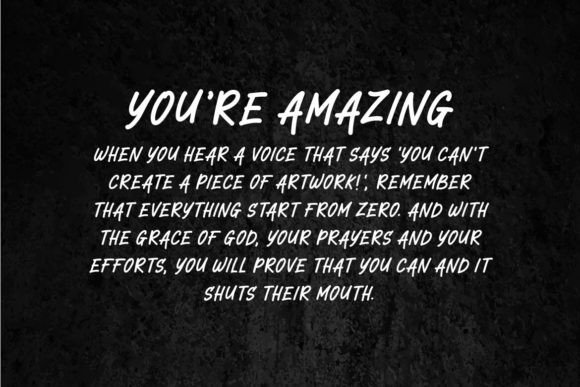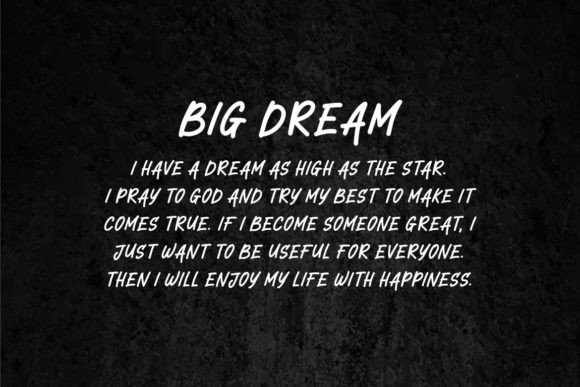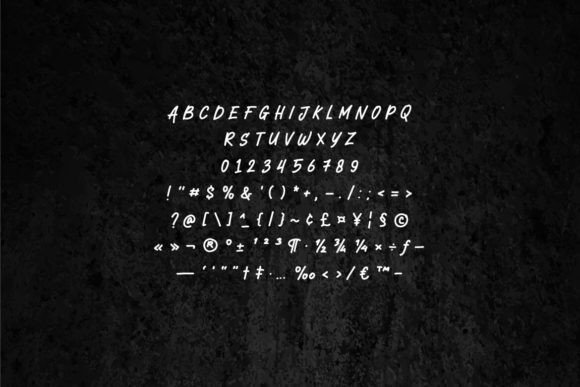
The Quest for the Perfect Comic Font: Discovering Arc Time
I’ll never forget the time I was working on a comic book project, pouring my heart and soul into the story and illustrations, but struggling to find the perfect font to bring it all together. My client was specific – they wanted a font that was both playful and professional, with a touch of whimsy. After hours of scouring the internet, I stumbled upon **Arc Time**, a minimalist handwritten comic font that stole my heart. In this article, I’ll share my journey with Arc Time, its features, and how to make the most of it in your designs.
Arc Time: A Personal Review
As a designer, I’m always on the lookout for fonts that can elevate my work and make it stand out. Arc Time has become a staple in my font library, and here’s why:
- ✨ Unique and quirky: Arc Time has a distinct personality that’s both modern and nostalgic.
- ✅ Highly versatile: It can be used in a variety of projects, from comic books and posters to social media content and logos.
- 💡 Easy to read: Despite its playful nature, Arc Time is surprisingly legible, even at smaller font sizes.
Of course, no font is perfect, and Arc Time has a few quirks:
- 🤔 Limited language support: Arc Time primarily supports English and a few other languages, so be sure to check the character set before using it for non-English projects.
- ⚠️ Glyph limitations: While Arc Time has a range of glyphs and stylistic alternates, it’s not as extensive as some other fonts on the market.
The Story Behind Arc Time
Arc Time was designed with the comic book enthusiast in mind. Its creator, a passionate designer and comic book fan, aimed to craft a font that would bring a sense of nostalgia and playfulness to any project. With inspiration drawn from classic comic books and modern digital art, Arc Time was born – a font that’s both timeless and trendy.
| Author | Mightyfire |
| What type of projects is Arc Time best suited for? | Arc Time is versatile and can be used in comic books, posters, school projects, flyers, book titles, advertisements, social media content, logos, and more. |
| Does Arc Time support multiple languages? | Arc Time primarily supports English and a few other languages; check the character set for specific language support. |